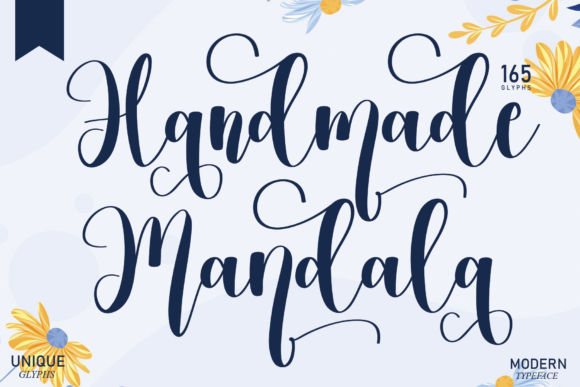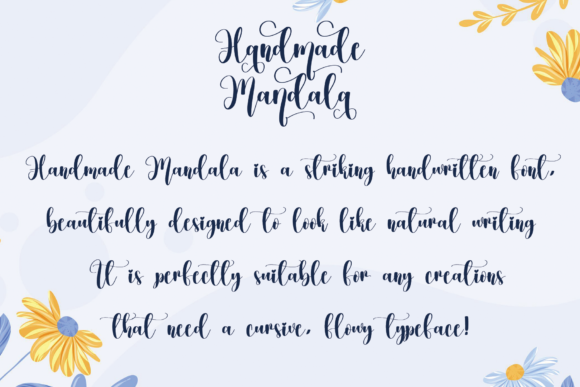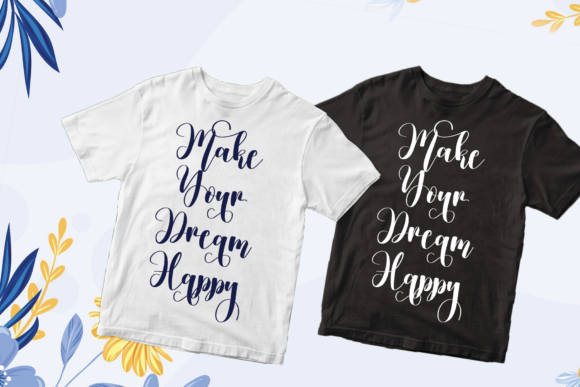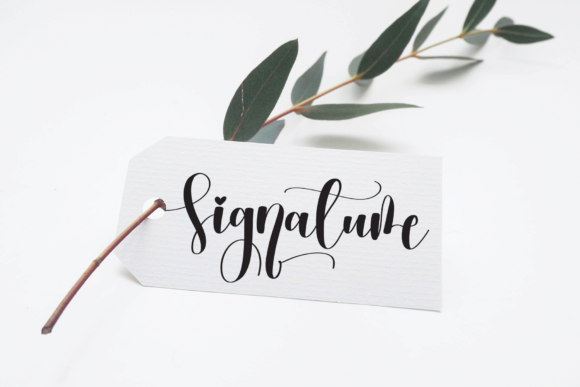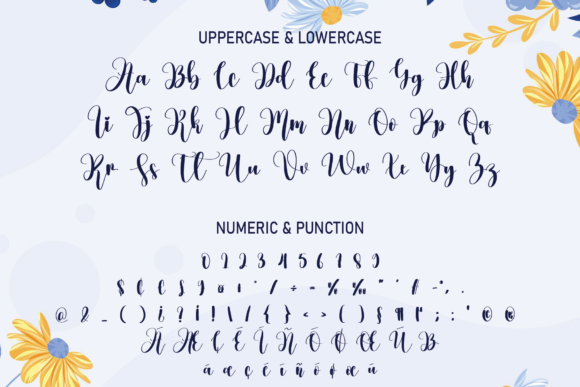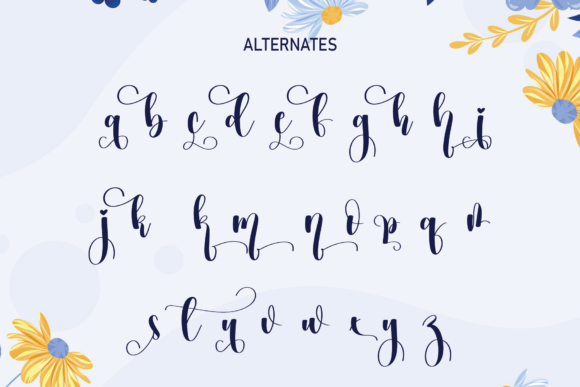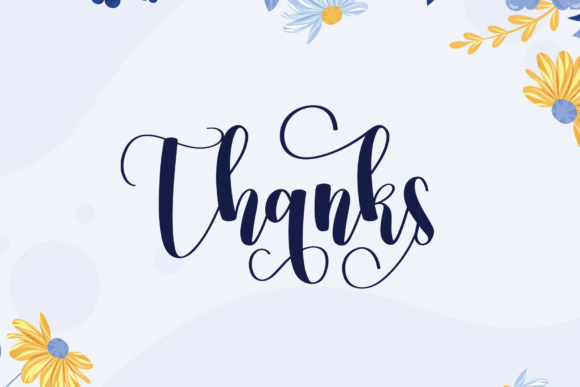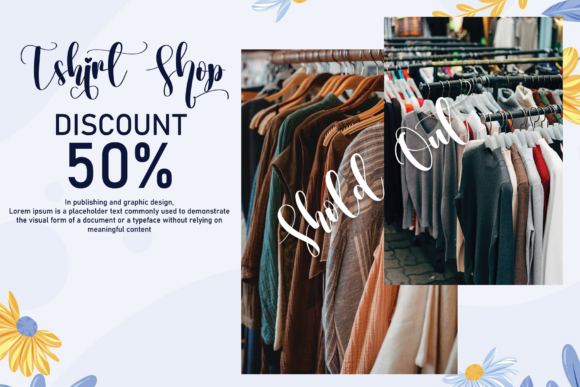
Handmade Mandala Font
About Handmade Mandala Font
Handmade Mandala is a delicate and elegant handwritten font. Its distinct and well balanced letters make this font a masterpiece. Fall in love with its incredibly versatile style and use it to create spectacular designs!